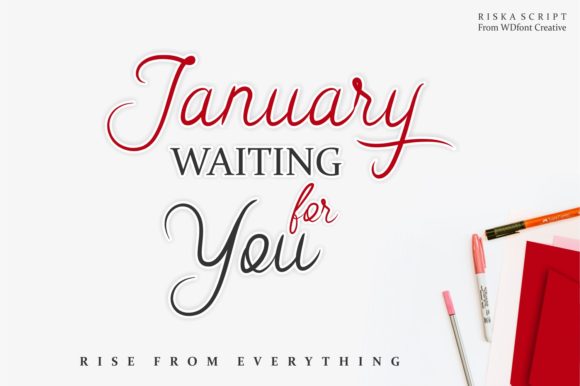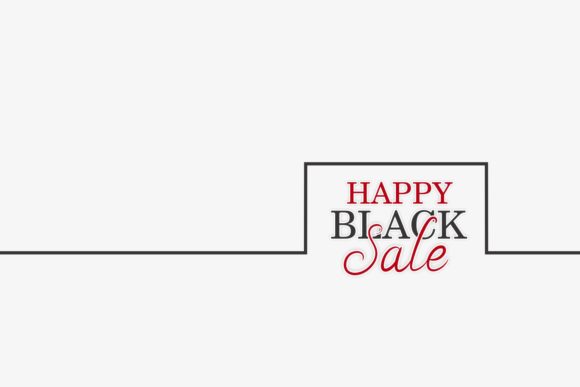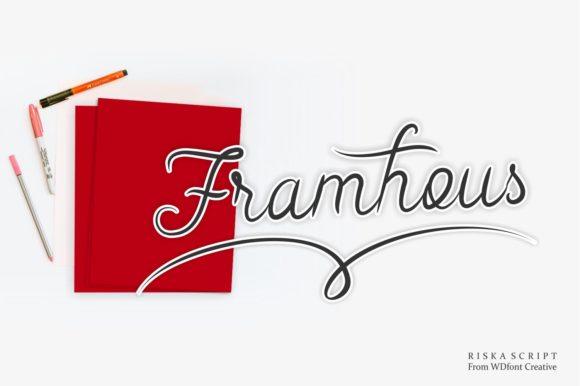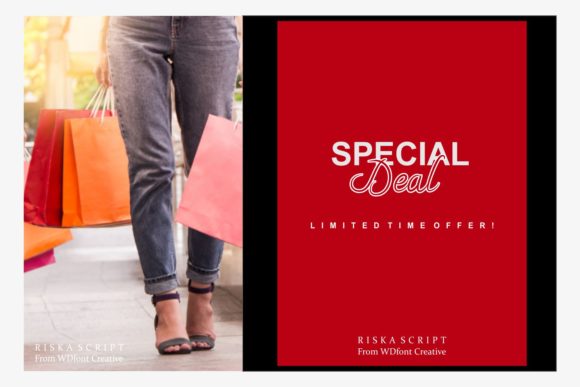
Riska Script Font
About Riska Script Font
The Riska Scrpt is a fun script font. It has a smooth, handwritten style, which is perfect for branding projects, product packaging, and more!
It can be used simply as a stylish text overlay to any background image, or anything requiring a sprinkle of elegance!